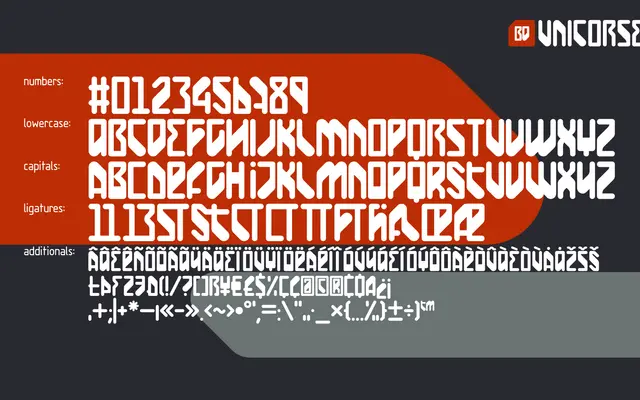
BD Unicorse
Type Different · 2010
A single-weight mixed-case display font from 2010 with a retro-futuristic character, featuring 12 ligatures and alternate glyphs assigned to capital keys.
The font places its main character set on lowercase keys and alternative forms on capitals, creating an unusual mixed-case typographic register suited to headlines and logotypes. Twelve ligatures extend its compositional options for poster and packaging work. Its angular, retro-futuristic styling points towards games, film and music contexts.
A mixed-case display face with a distinctly retro-futuristic character, designed for headline and packaging use rather than extended reading. The unconventional case assignment and stylistic ligatures place it firmly in the display category.